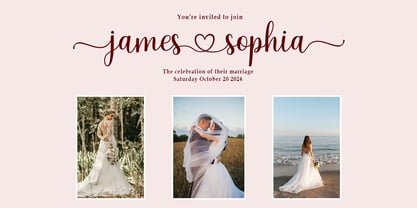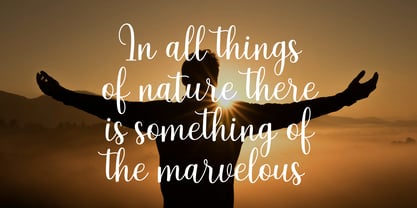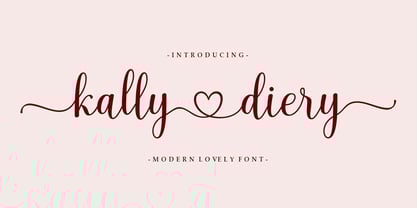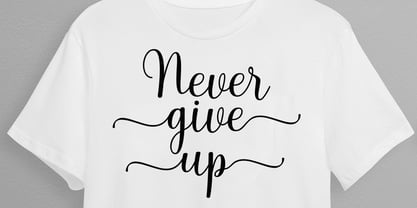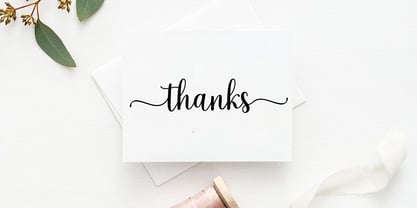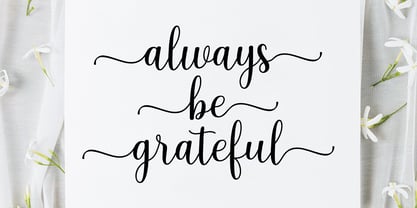
Kally Diery
by Mj Studio
The Kally Diery Font Family was designed by Ramadhan - and published by Mj Studio. Kally Diery contains 1 styles. More about this family
Kally Diery is a Chic and Lovely Calligraphy font, described by a Love touch with natural handwritten style, perfect for your favorite projects.
Fall in love with its incredibly distinct and timeless style and use it to create spectacular designs!
Designers: Ramadhan -
Foundry: Mj Studio